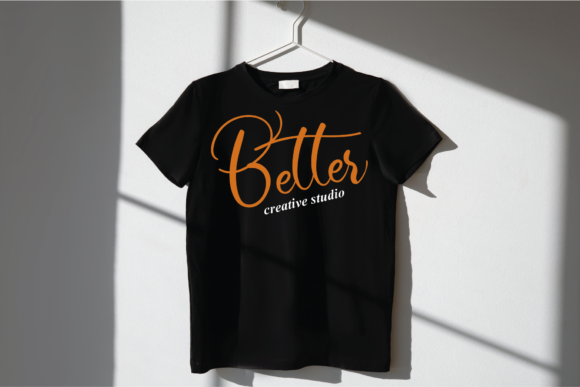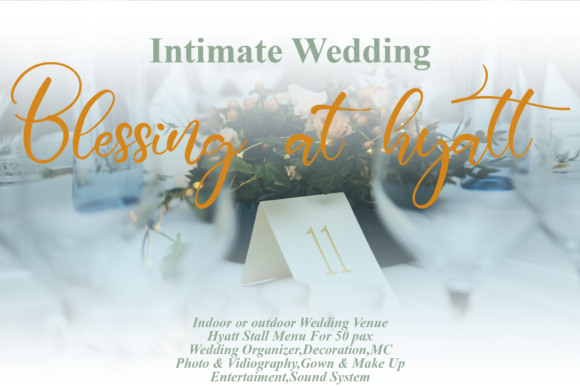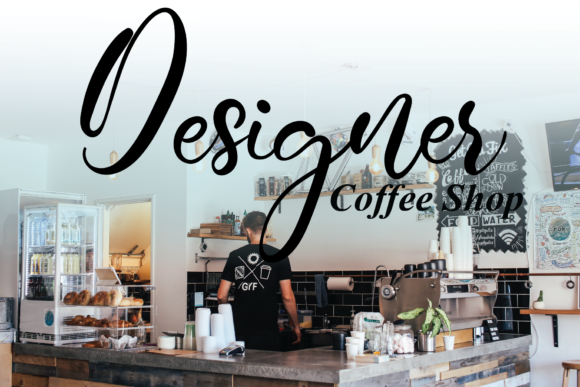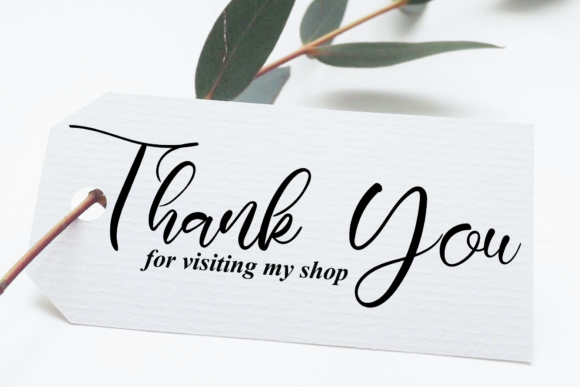
Better Font: Elevate Your Designs with Elegance and Sophistication
In the world of typography, a font can make or break a design. It’s the foundation upon which the entire visual identity is built. For designers and crafters, finding the perfect font can be a daunting task. However, if you’re looking for a typeface that exudes elegance, sophistication, and a touch of modernity, look no further than Better Font.
What is Better Font?
Better Font is an exquisite handwritten font, meticulously crafted to capture the essence of calligraphic artistry while infusing it with a contemporary twist. This masterful design ensures that Better Font stands out in the crowded world of typography, making it an instant favorite among designers and crafters alike.
The Characteristics of Better Font
Better Font boasts a range of characteristics that set it apart from other typefaces:
- Classy Calligraphic Influences: Better Font draws inspiration from traditional calligraphy, lending it an air of sophistication and luxury.
- Contemporary and Fresh: Despite its classic roots, Better Font feels modern and current, making it perfect for designs that require a touch of innovation.
- Handwritten Charm: The font’s handwritten nature gives it a personal and approachable feel, ideal for projects that aim to connect with their audience on a more intimate level.
Why Choose Better Font?
- Versatility: Better Font can be used across a wide range of projects, from branding and advertising to packaging and digital media.
- Elegance: Its calligraphic influences ensure that Better Font brings an level of elegance to any design, making it perfect for high-end projects.
- Readability: Despite its ornate appearance, Better Font is remarkably legible, ensuring that your message is conveyed clearly and effectively.
Tips for Maximizing Better Font’s Potential
- Pair it Wisely: Better Font pairs beautifully with clean, sans-serif fonts. Experiment with different combinations to find the perfect match for your project.
- Play with Colors: While Better Font looks stunning in its classic form, don’t hesitate to experiment with different colors and gradients to add depth and interest.
- Use it Sparingly: While Better Font is elegant and sophisticated, using it sparingly can make it even more impactful. Consider using it for headings or key messages.
Better Font is more than just a typeface; it’s a design statement. With its exquisite handwritten style, classy calligraphic influences, and contemporary freshness, Better Font is poised to become your new favorite. Whether you’re a designer, crafter, or simply someone who appreciates beautiful typography, Better Font offers the perfect blend of elegance and sophistication to elevate your projects to new heights. So why wait? Fall in love with Better Font and discover a world of limitless creative possibilities.